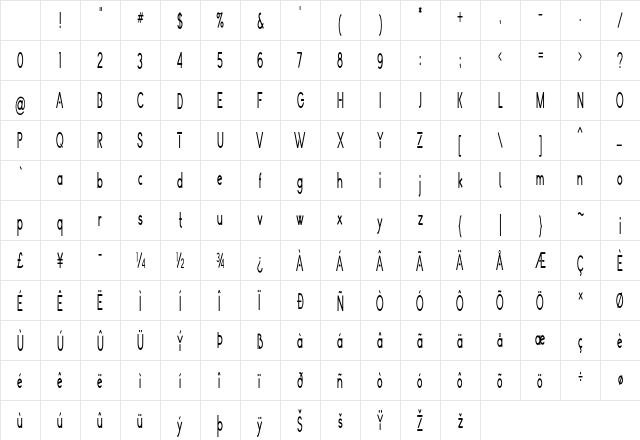
Complete Floridon Extra-condensed Regular glyph index. Displaying only characters natively supported by Floridon Extra-condensed Regular font.
Floridon is a composed and adaptable typeface that performs quietly and consistently across a wide range of design contexts. Its narrow stance lets it pack a punch even in space-constrained designs.